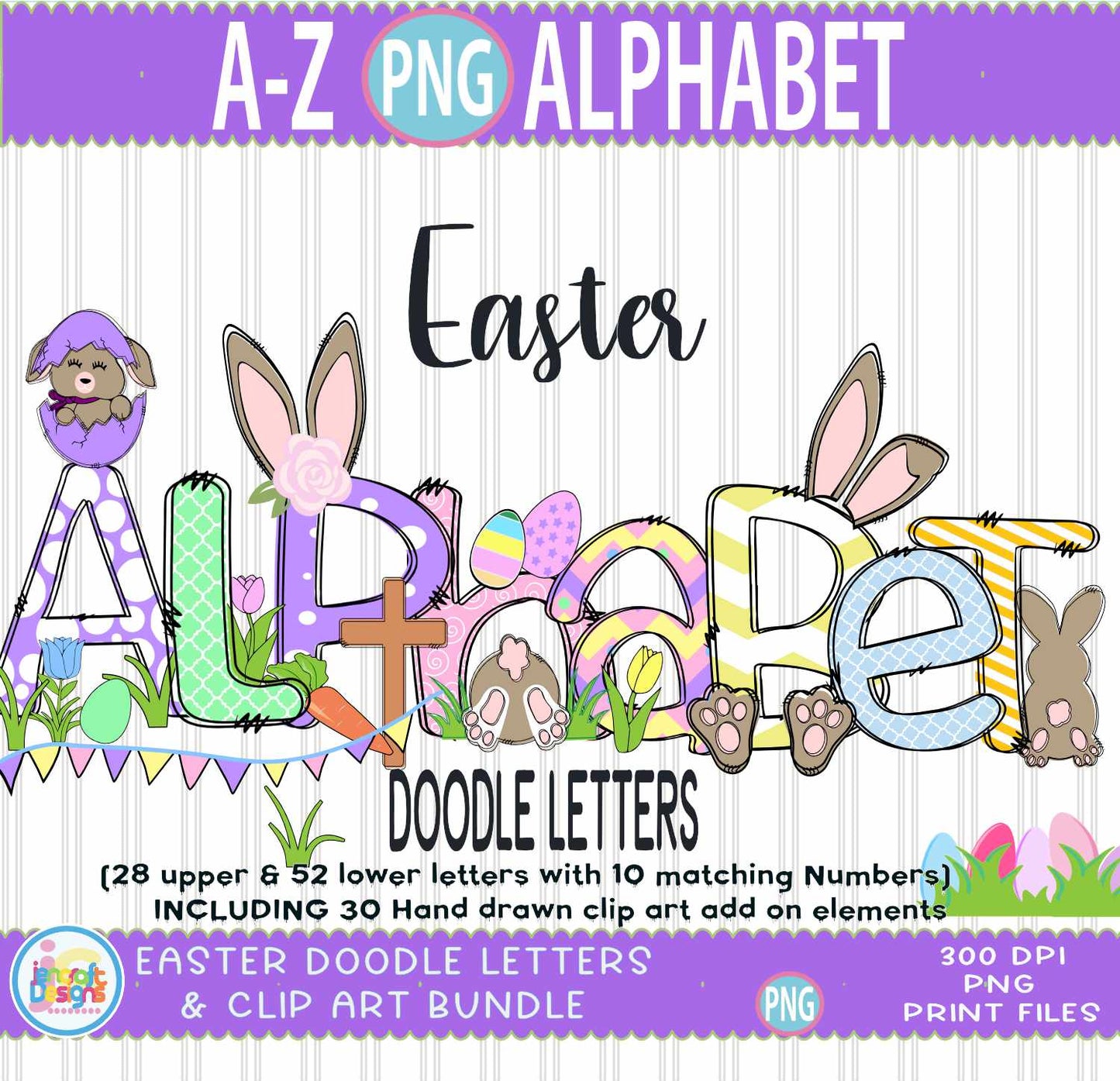
Easter Doodle Letters PNG | Easter Alphabet Sublimation File
Bring springtime charm to your sublimation projects with this whimsical Easter Doodle Letters PNG Bundle — a hand-drawn A–Z alphabet bursting with Easter-themed flair, perfect for Easter shirts, tumblers, totes, personalized gifts, and seasonal crafts. Each letter is saved individually — no slicing needed, just drop them right into your designs!